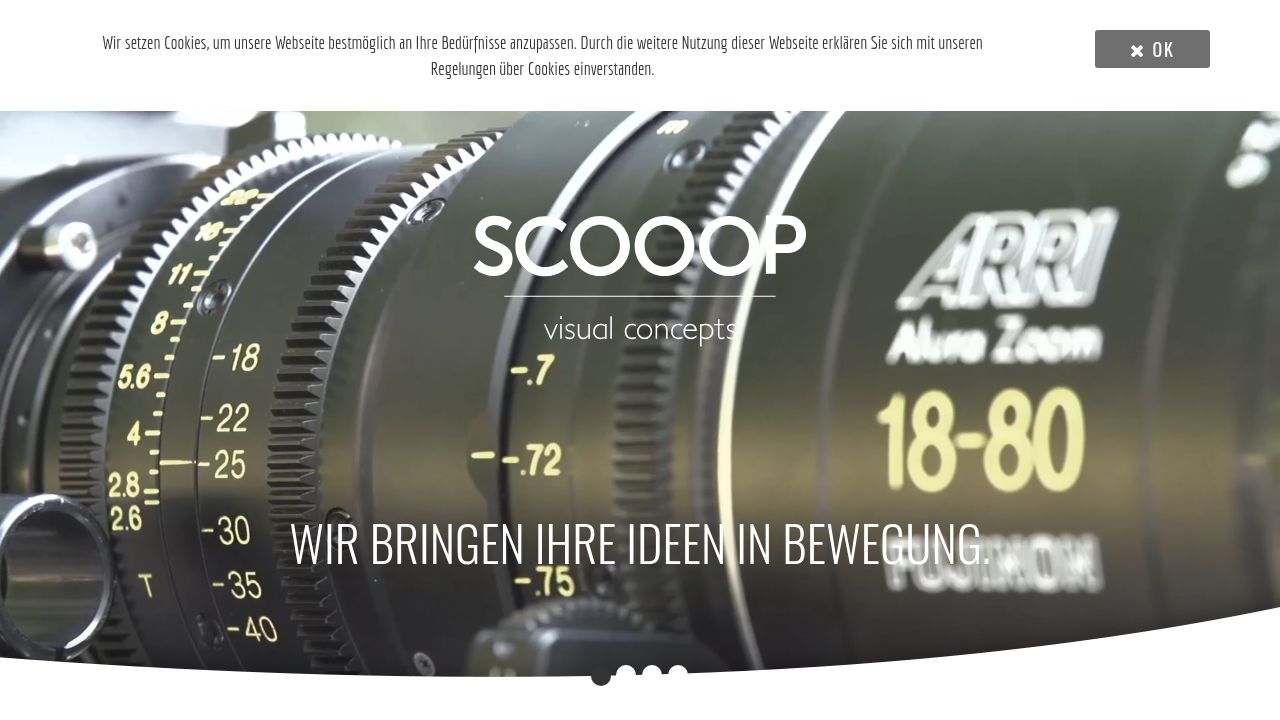
Scooop-visuals.com uses Economica and Oswald as its main typefaces. helvetica-neue, Menlo, Arial and Helvetica are declared as fallbacks. 11 fonts detected, last checked Sep 20, 2026.
SCOOOP visual concepts, a full-service communication agency based in Berlin and Munich, utilizes a distinct selection of fonts to convey its unique identity. The primary use of Helvetica Neue and Menlo reflects a clean and functional approach, while Oswald adds a touch of modernity. Economica, with its various weights, enhances the brand's versatility. Custom fonts like FontAwesome and Glyphicons Halflings enrich the visual storytelling, making SCOOOP's design both engaging and effective for its audience in the film and event industries.
font-family: 'Economica', sans-serif;These fonts are listed in the CSS as backups. The browser only falls back to them if the main fonts above fail to load.
Used for UI icons rather than readable text - no preview available.
Scooop-visuals.com uses Economica and Oswald as its main typefaces. helvetica-neue, Menlo, Arial and Helvetica are declared as fallbacks. 11 fonts detected, last checked Sep 20, 2026.
The primary fonts on scooop-visuals.com include Helvetica Neue, Menlo, Oswald, Economica, FontAwesome, and Glyphicons Halflings.
Helvetica Neue offers a more refined appearance with better spacing and clarity compared to Arial, making it suitable for modern web design.
Economica is available in weights of 400 and 700, providing options for both regular and bold text, enhancing its versatility for design needs.
FontAwesome is used on scooop-visuals.com for iconography, allowing for scalable vector icons that maintain quality across different screen sizes.